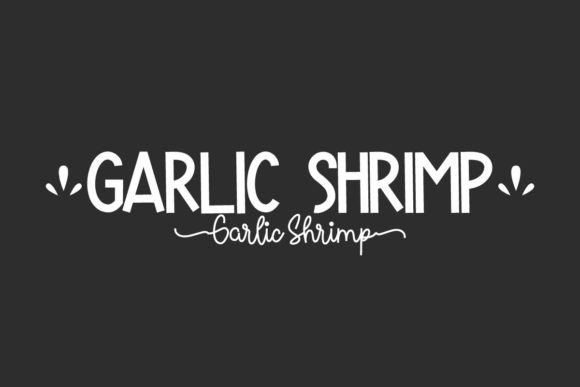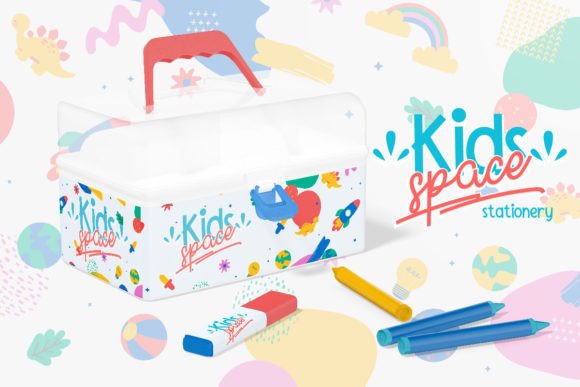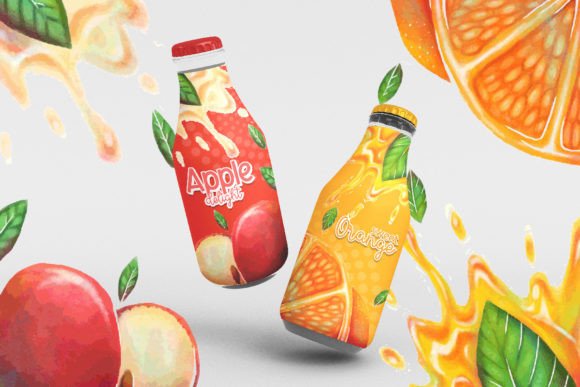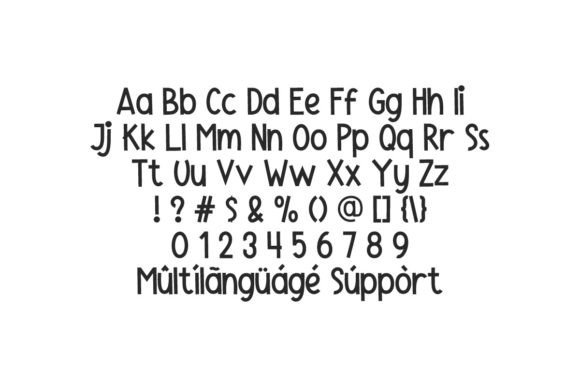
Garlic Shrimp Duo Font
About the Garlic Shrimp Duo Font
Step up your design game with Garlic Shrimp Duo Font, a font that exudes confidence and style. Garlic Shrimp is a font duo that consists of two different styles: a playful sans serif and a monoline handwriting script. These two fonts will give a friendly and cheerful accent to every design you make while making it standout from crowd. It will be suitable for many industries such as food and beverage, kid-friendly items, publishing, restaurants, school rafts, toys, and many more!
The playful sans serif works best in headlines, short body copy, and packaging designs where a friendly, approachable feel is desired. It’s less suitable for large blocks of text or UI elements due to its informal nature. The script font is ideal for logos, short taglines, and decorative elements, adding a touch of handwritten charm. Avoid using it for extensive text.
For optimal pairings, consider a clean, geometric sans-serif like Montserrat or a classic serif such as Garamond to balance the Duo’s informal energy. These pairings will create visual contrast while maintaining a cohesive aesthetic. Alternatively, a more modern, minimalist sans-serif like Lato could complement the playful sans-serif within the Duo.
The Garlic Shrimp Duo exudes a friendly, approachable personality, making it perfect for brands targeting younger demographics or those emphasizing fun and approachability. Its versatility allows for use in various design contexts, provided the length of the text and overall design style are considered.